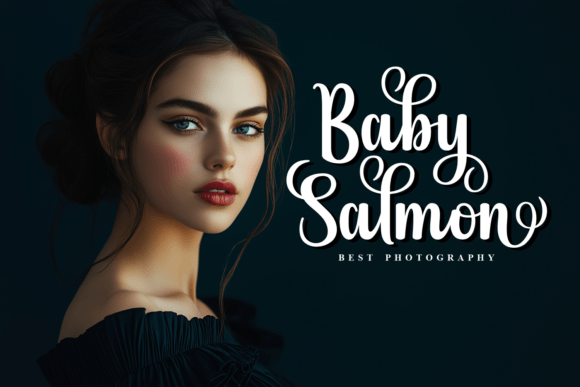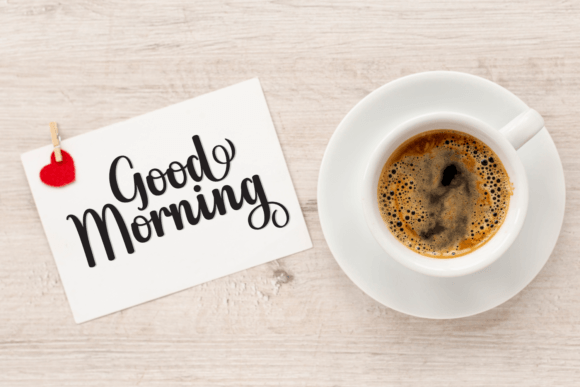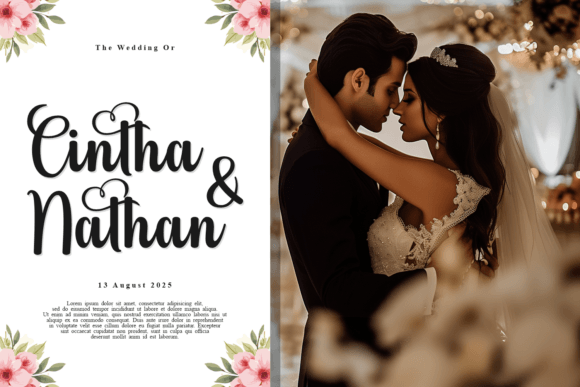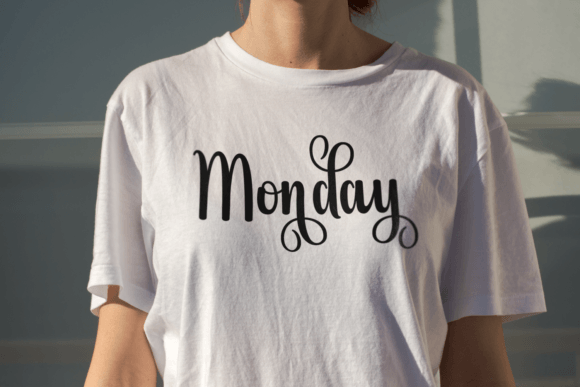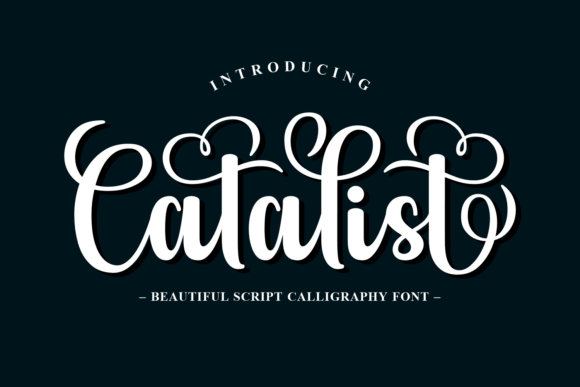
Catalist Font: The Perfect Choice for Elegant and Romantic Designs
In the world of typography, fonts play a crucial role in conveying the tone and personality of a design. For designers and crafters looking to add a touch of elegance and romance to their work, the Catalist font is an excellent choice. This beautiful, bold script font features elegant heart-shaped swashes that add a charming and heartfelt feel to any design.
What is Catalist Font?
Catalist is a stunning script font that boasts flowing letters and heart-shaped swashes, making it perfect for designs that require a romantic and sophisticated touch. Its unique and elegant features make it an ideal choice for a variety of design projects, including invitations, greeting cards, wedding stationery, and more.
Key Features of Catalist Font
• Elegant Heart-Shaped Swashes: The font features beautiful heart-shaped swashes that add a touch of romance and whimsy to any design.
• Flowing Letters: The flowing letters of the Catalist font create a sense of movement and fluidity, making it perfect for designs that require a dynamic and elegant feel.
• Bold Script: The font’s bold script style makes it perfect for headlines, titles, and other design elements that require a strong and confident look.
• Versatile: The Catalist font is versatile and can be used for a wide range of design projects, from invitations and greeting cards to wedding stationery and more.
Uses of Catalist Font
The Catalist font is perfect for designers and crafters who want to add a touch of elegance and romance to their work. Here are some popular uses of the font:
• Invitations: The font is perfect for creating beautiful and elegant invitations for weddings, baby showers, and other special occasions.
• Greeting Cards: The Catalist font is ideal for creating romantic and heartfelt greeting cards for Valentine’s Day, anniversaries, and other special occasions.
• Wedding Stationery: The font is perfect for creating elegant and sophisticated wedding stationery, including wedding invitations, programs, and place cards.
• Branding: The Catalist font can also be used for branding and packaging design, adding a touch of elegance and sophistication to any product or service.
Tips for Using Catalist Font
Here are some tips for using the Catalist font in your designs:
• Pair it with a Simple Font: Pair the Catalist font with a simple font to create a beautiful contrast and add visual interest to your design.
• Use it for Headlines: The font’s bold script style makes it perfect for headlines and titles, adding a touch of elegance and sophistication to your design.
• Experiment with Colors: The Catalist font looks beautiful in a variety of colors, so don’t be afraid to experiment and find the perfect color to match your design.
• Use it for Special Occasions: The font is perfect for special occasions, such as weddings, anniversaries, and Valentine’s Day, so be sure to use it for these types of designs.
In conclusion, the Catalist font is a beautiful and elegant script font that features heart-shaped swashes and flowing letters. Its unique and sophisticated features make it perfect for designs that require a romantic and heartfelt feel. Whether you’re a designer or crafter, the Catalist font is an excellent choice for adding a touch of elegance and romance to your work.
With its elegant features and versatile uses, the Catalist font is sure to become a favorite among designers and crafters. So why not give it a try and see how it can add a touch of romance and sophistication to your designs?